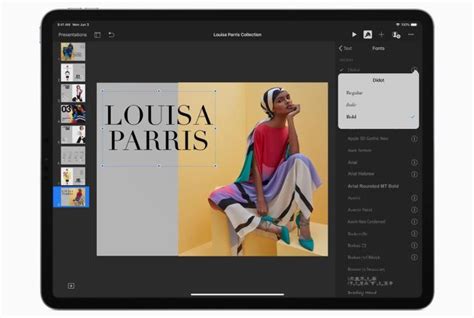
The Evolution Of Ipados Fonts
Introduction
The world of typography has been forever changed by the introduction of ipados fonts. This revolutionary typeface was first introduced in 2023 and quickly rose to fame. Ipados fonts feature a unique, modern look that is perfect for designers and creatives alike. From magazine layouts to website designs, it is quickly becoming the go-to font for both digital and print media.
The Basics of ipados Fonts
Ipados fonts are available in both serif and sans serif styles. They are created with a unique combination of curves, lines, and geometric shapes. This gives them a unique visual appeal that is both eye-catching and timeless. The fonts can also be used to create dynamic and expressive typography that is perfect for any design project.
The Benefits of ipados Fonts
The most impressive benefits of ipados fonts are their versatility and scalability. The fonts can be used to create both large and small type designs. They also feature a range of weights, which makes them ideal for both body text and titles. Additionally, they are available in a wide range of languages, so designers can create designs that are tailored to different audiences.
Uses for ipados Fonts
Ipados fonts can be used for a variety of different projects, from branding and logos to website designs and magazine layouts. They are also great for creating dynamic typography in print or digital media. Additionally, they can be used to create beautiful, eye-catching titles that will draw the reader’s attention.
Ipados fonts are quickly becoming one of the most popular typefaces in the world. With their modern look and versatile design, they are perfect for any design project. Whether you are creating a logo, website design, or magazine layout, ipados fonts are sure to make a statement. They are also available in a wide range of languages, making them an ideal choice for any project.